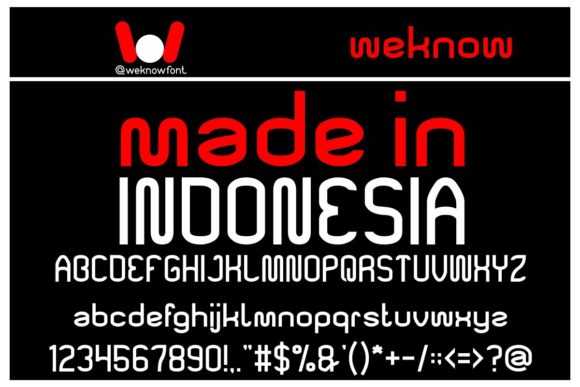
Journey to the Heart of Indonesian Beauty with Made in Indonesia Font
Immerse yourself in the captivating world of Made in Indonesia, a display font that exudes elegance and charm. Inspired by the rich cultural heritage of Indonesia, this font carries a touch of exoticism that will elevate your designs to new heights.
With its graceful curves and intricate details, Made in Indonesia is a visual masterpiece that will captivate your audience. Each letter is meticulously crafted to evoke emotions and create a lasting impact. Whether you're designing logos, posters, headlines, or any other creative project, Made in Indonesia will add a touch of sophistication and uniqueness that sets your work apart.
Indulge in the beauty of Indonesian culture and let Made in Indonesia transport you to a world of wonder and inspiration.